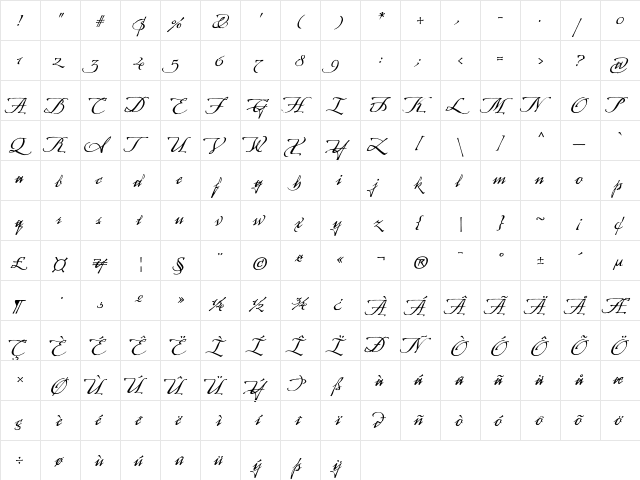
Arcana GMM Std Manuscript
| Designer | Gabriel MartҮez Meave |
Design Context for Arcana GMM Std Typeface
Arcana GMM Std brings a calligraphic fluidity to the page — its connecting strokes and expressive curves give it an unmistakably human quality.
Font Pairing: Combine Arcana GMM Std with a simple geometric sans for maximum contrast — the tension between flowing curves and clean structure is a classic typographic pairing.
Pro Tip: Use Arcana GMM Std for short runs of text — names, titles, or taglines. Extended body copy in script faces tires the eye quickly.